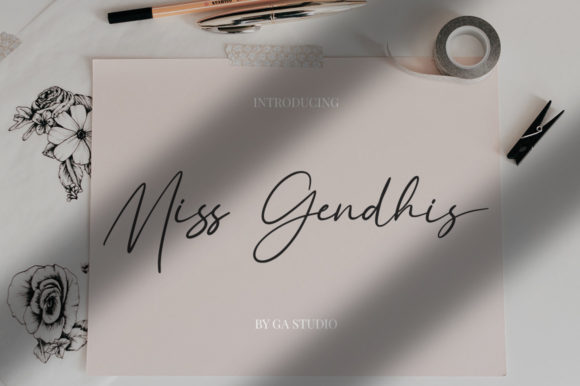
Step into the world of Miss Gendhis, a script font that captivates with its slim and fashionable allure. Let your creativity soar as you explore the limitless possibilities of this typographic masterpiece. Whether you're crafting stunning logos, designing eye-catching t-shirts, or creating captivating products, Miss Gendhis will elevate your projects to new heights of elegance and sophistication.
Unleash the power of Miss Gendhis and immerse yourself in a world of visual delight. Its graceful curves and delicate details will transform your designs into works of art. From elegant invitations to enchanting wall art, Miss Gendhis adds a touch of charm and personality to every project.
With Miss Gendhis, you'll never be limited by creative boundaries. Its versatility knows no bounds, making it the perfect choice for a wide range of branding projects. Create logos that exude sophistication, design t-shirts that speak volumes, and craft creative products that captivate your audience. Miss Gendhis is the key to unlocking your creative potential and leaving a lasting impression.
Don't settle for ordinary fonts. Embrace the extraordinary with Miss Gendhis and let your designs shine. Its timeless beauty and versatility will transform your projects into masterpieces that will leave a lasting impression.